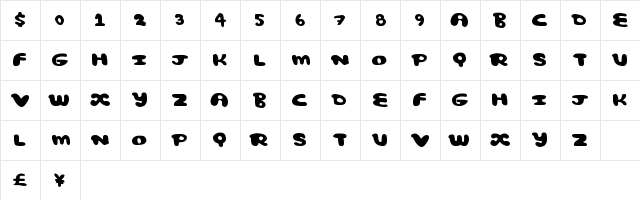
ComicBubble Regular
| Foundry | Xerographer Fonts |
| Designer | Max Infeld |
Design Context for ComicBubble Typeface
ComicBubble trades formality for fun, with bouncy, characterful letterforms that bring warmth and energy to any project.
Font Pairing: Pairs well with a rounded or humanist sans for body copy, maintaining the friendly tone without relying on ComicBubble to carry extended reading.
Pro Tip: Use ComicBubble at larger display sizes where its expressive character can land. Pair with a clean, simple sans for body copy to maintain readability.